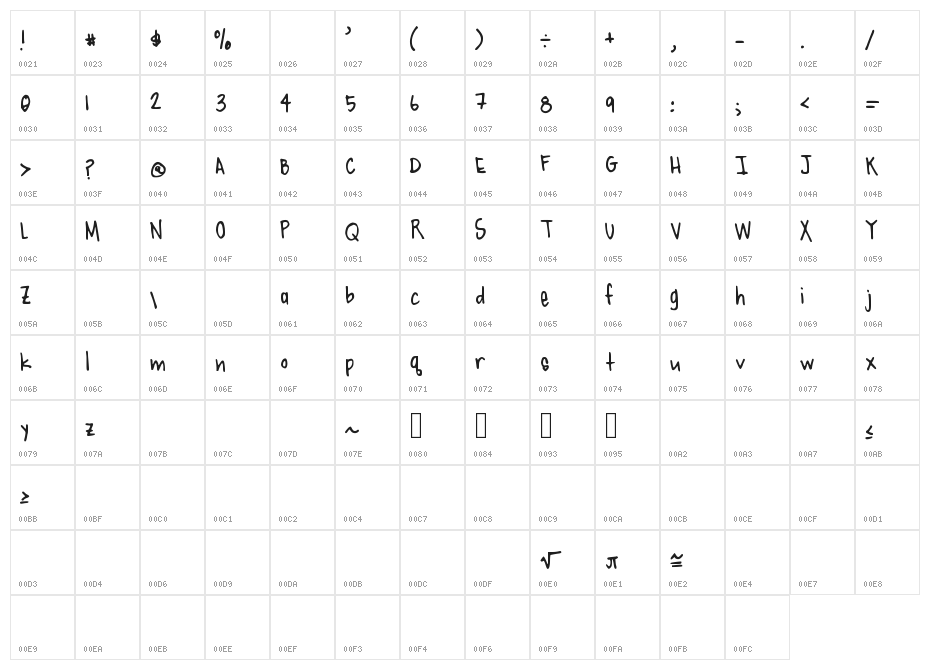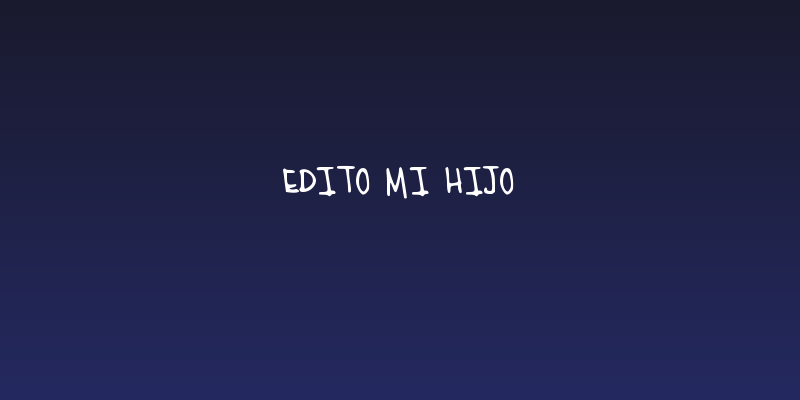
edito mi hijo Font
edito mi hijo Description
This font features a playful and casual handwritten style, characterized by its uneven strokes and slightly irregular shapes. The letters have a whimsical appearance, with rounded edges and a friendly demeanor. The uppercase and lowercase letters maintain a consistent style, while the numbers and special characters blend seamlessly with the overall design. This font exudes a sense of informality and creativity, making it ideal for projects that require a personal touch or a fun, approachable aesthetic.
| Proposed Projects | Ideal for children's books, greeting cards, casual invitations, and playful branding. |